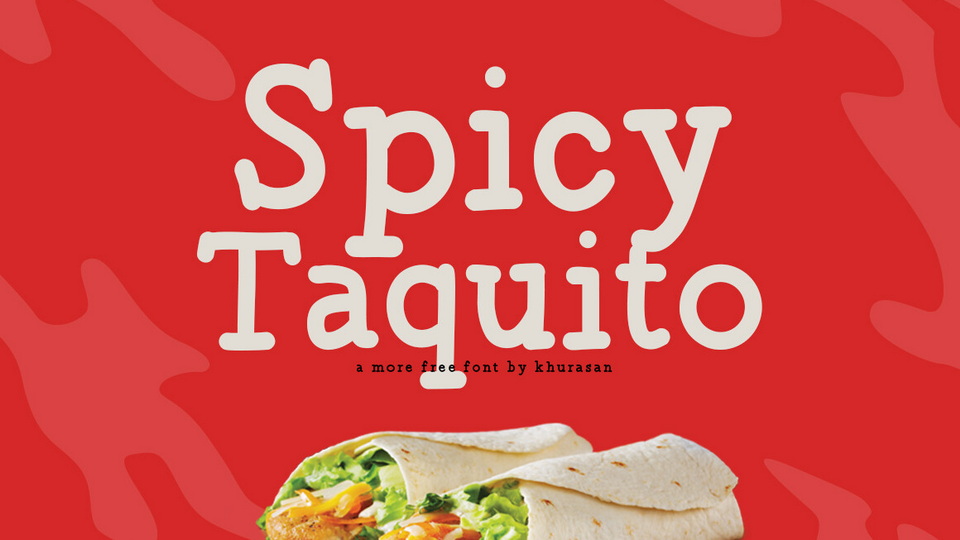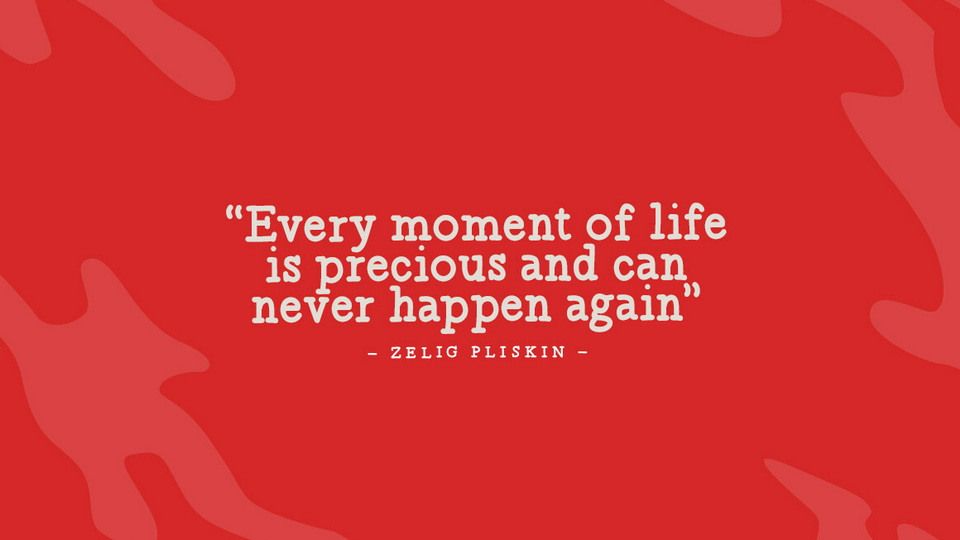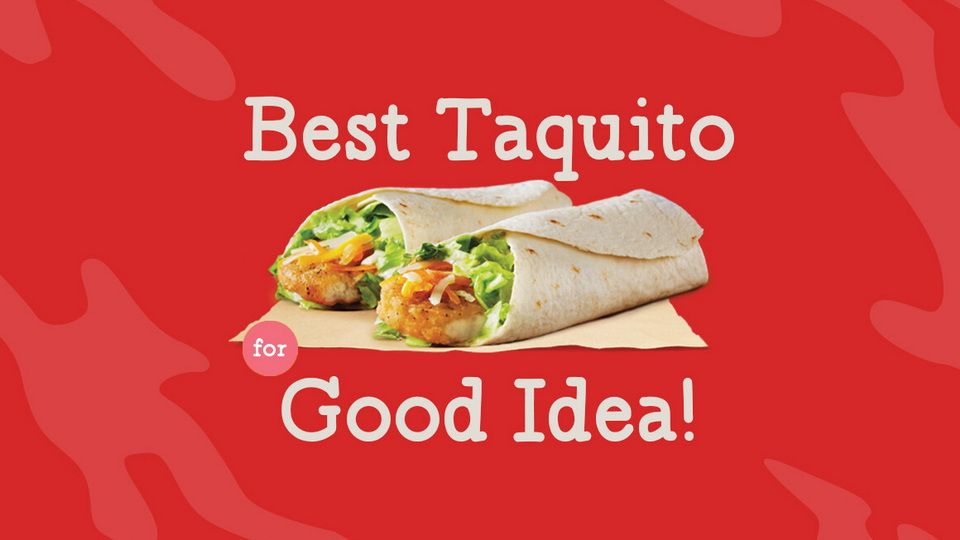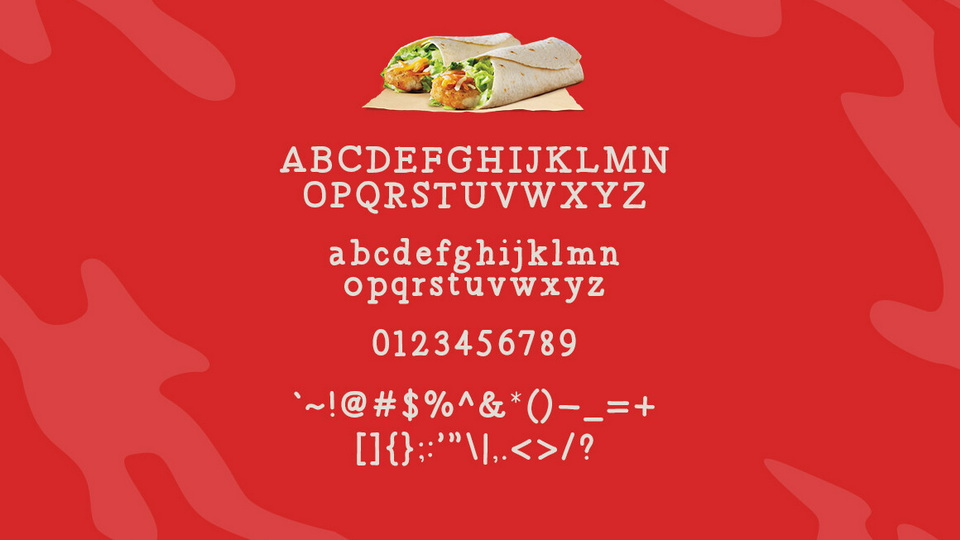
Spicy Taquito is a charming hand-drawn serif font that brings a delightful touch of playfulness and character to your designs.
Spicy Taquito font features a unique and expressive design, with each letter exuding a sense of carefree movement. Whether you’re crafting children’s book titles, inviting event posters, or captivating social media graphics, this font infuses a touch of artistic charm that radiates happiness.